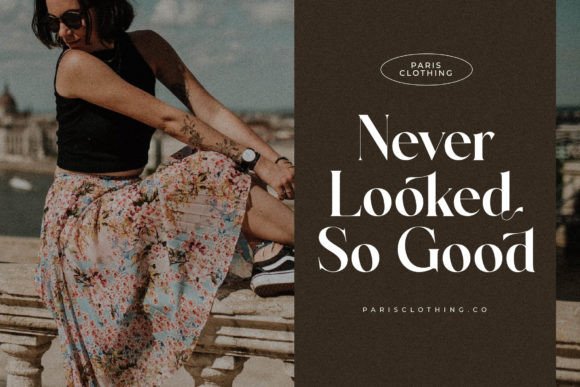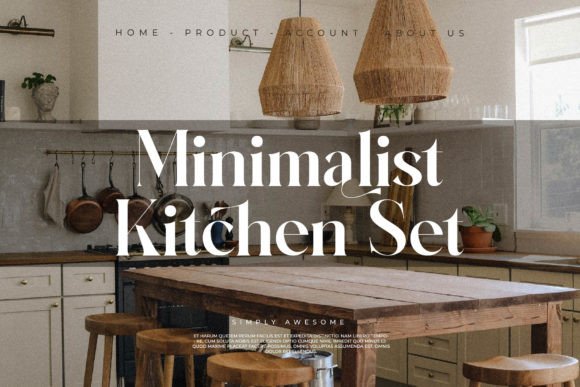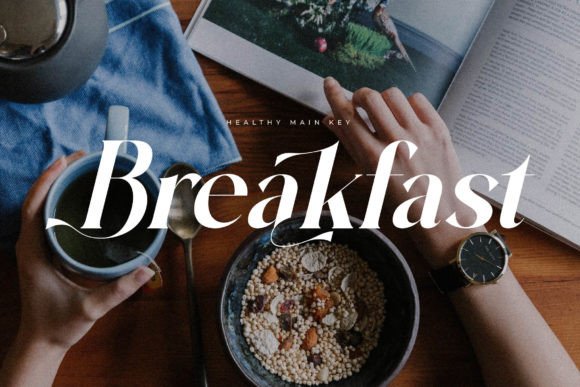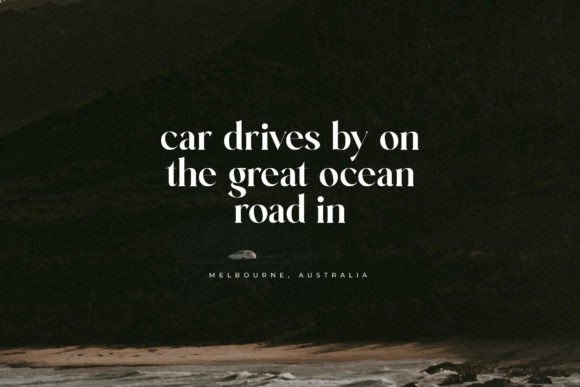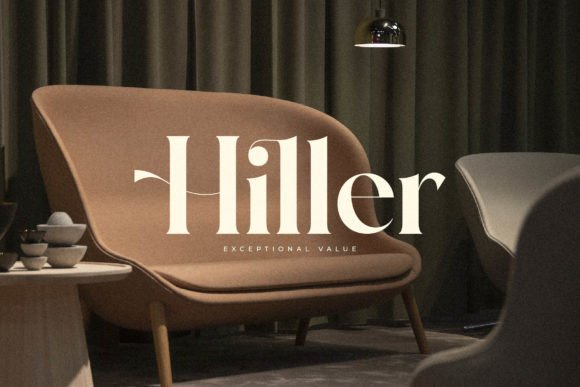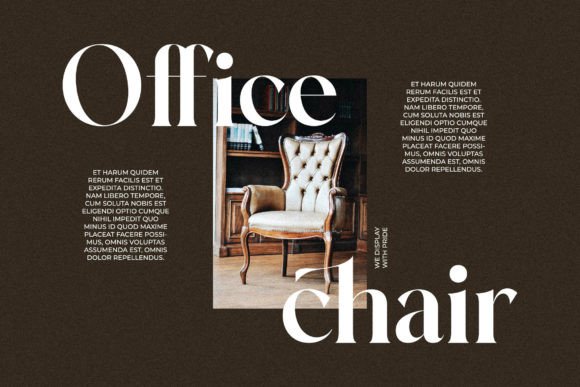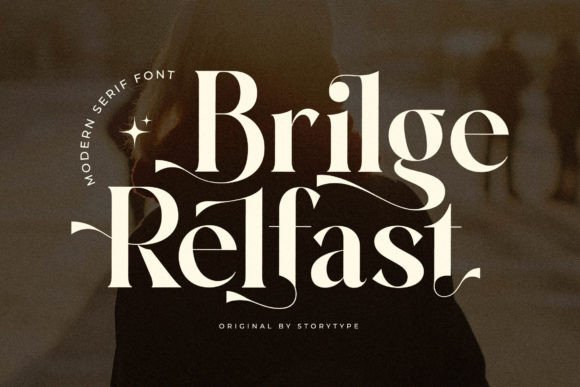
Discover the Elegance of Brilge Relfast Font: A Modern Classic Serif
In the realm of typography, a font can make or break the visual identity of a brand, design, or artwork. For those seeking a typeface that exudes elegance, luxury, and a touch of modernity, Brilge Relfast Font stands out as an exceptional choice. This article delves into the characteristics, uses, and benefits of Brilge Relfast, a modern and classic serif font that is rapidly becoming a favorite among designers and crafters.
What is Brilge Relfast Font?
Brilge Relfast is a thoughtfully designed serif font that strikes a perfect balance between modernity and classic appeal. Its unique style and fancy look make it an ideal choice for projects that demand a high level of sophistication. Whether you’re working on a luxury brand’s logo, a book or movie title, a fashion brand’s marketing materials, or a high-end magazine, Brilge Relfast offers the versatility and elegance you need.
Key Features of Brilge Relfast Font
- Unique Style and Fancy Look: Brilge Relfast boasts a distinctive design that sets it apart from more traditional serif fonts. Its elegant lines and curves give it a luxurious feel, perfect for designs that aim to impress.
- PUA Encoded: One of the significant advantages of Brilge Relfast is that it is PUA (Private Use Area) encoded. This encoding allows for easy access to all glyphs and swashes, providing users with a wide range of creative possibilities without the complexity of managing special characters.
- Versatility: The font’s adaptability is one of its strongest attributes. It can be used across various mediums, from digital platforms to print materials, making it a valuable asset for any designer or brand looking to maintain consistency across different channels.
Applications of Brilge Relfast Font
The applications of Brilge Relfast are vast and varied, limited only by your imagination. Here are some of the most notable uses:
- Elegant & Luxury Logos: Create a lasting impression with a logo that embodies luxury and sophistication.
- Book or Movie Title Design: Elevate your titles with a font that commands attention and evokes a sense of grandeur.
- Fashion Brands: Perfect for fashion brands looking to convey elegance, style, and high-end quality.
- Magazines: Ideal for magazine titles, headers, and any section that requires a touch of class.
- Clothes and Lettering: Use Brilge Relfast for clothing brand names, slogans, and lettering projects that demand a stylish look.
- Quotes and Typography Art: Its elegant design makes it perfect for typography art and quote designs that are meant to inspire or provoke thought.
Brilge Relfast offers several benefits that make it a valuable addition to any designer’s or crafter’s toolkit:
- Time-Saving: Being PUA encoded, it saves time that would otherwise be spent on character mapping and glyph management.
- Cost-Effective: Offering a wide range of uses and applications, it provides excellent value for money.
- Cross-Platform Compatibility: Its versatility ensures that it can be used across various projects and mediums, from web design to print.
- Unique Aesthetic: It helps in creating designs that stand out, thanks to its unique and elegant aesthetic.
Brilge Relfast Font is more than just a typeface; it’s a tool for creating visually stunning and impactful designs. Its blend of modernity and classic elegance, along with its practical benefits, makes it an excellent choice for designers and crafters looking to elevate their projects. Whether you’re aiming to create a luxury brand identity, design a captivating book or movie title, or simply add a touch of elegance to your artwork, Brilge Relfast is a font that promises to deliver.
With its wide range of applications and benefits, Brilge Relfast Font is poised to become a go-to choice for anyone looking to add a touch of sophistication and luxury to their designs. Explore its capabilities and discover how it can transform your projects into timeless pieces of art.